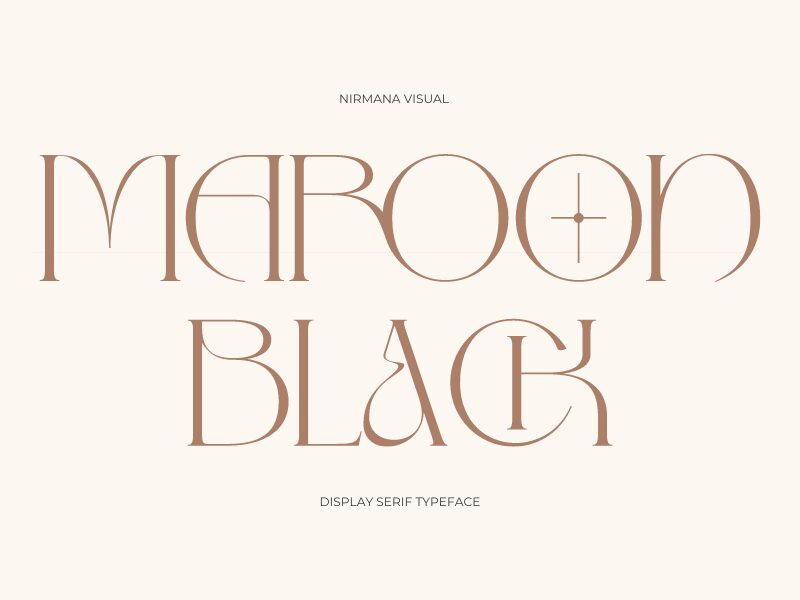
Maroon Black Regular
Maroon Black font was designed and published by Nirmana Visual. Maroon Black - A retro, classy serif with high contrast of strokes and sliced terminals. The sturdy and thick shape of the letter is great to pair with an elegant serif or a minimalist sans serif. Come with over 101 fonts files to get more stunning and freshness looks in your design. The mostly lively without perfect round structure give a clear look without losing identity.
It is basically designed for vintage-themed designs, but it will also work well on modern projects! Like Social Media Post Template, Newsletter Template, Magazine Title, Logo Type or Clothing Brand Identity! Great choice for fun magazine title project, cafe logo brand design, brand packaging etc.